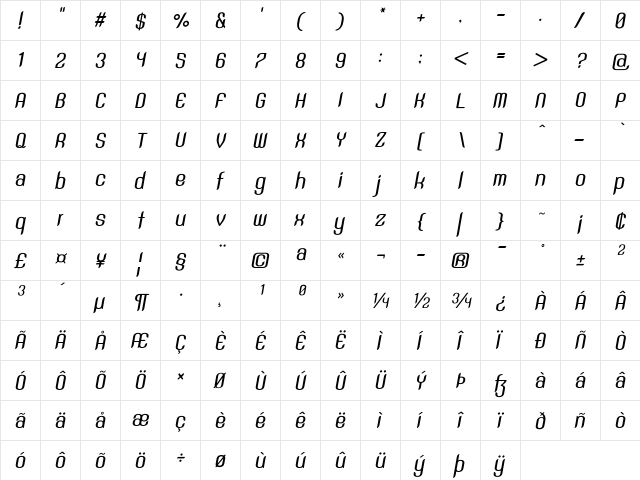
SNT Anouvong Medium Italic
| Foundry | Sengkeo Vangxiengvue |
| Designer | Sengkeo Vangxiengvue |
Design Context for SNT Anouvong Typeface
SNT Anouvong takes a measured approach to typography — its balanced proportions and neutral character make it a reliable workhorse for both digital and print work. The dynamic lean of this cut emphasises speed and emphasis in any layout.
Pro Tip: Use SNT Anouvong for emphasis, pull quotes, and subheadings where its slanted energy can add rhythm to the layout.